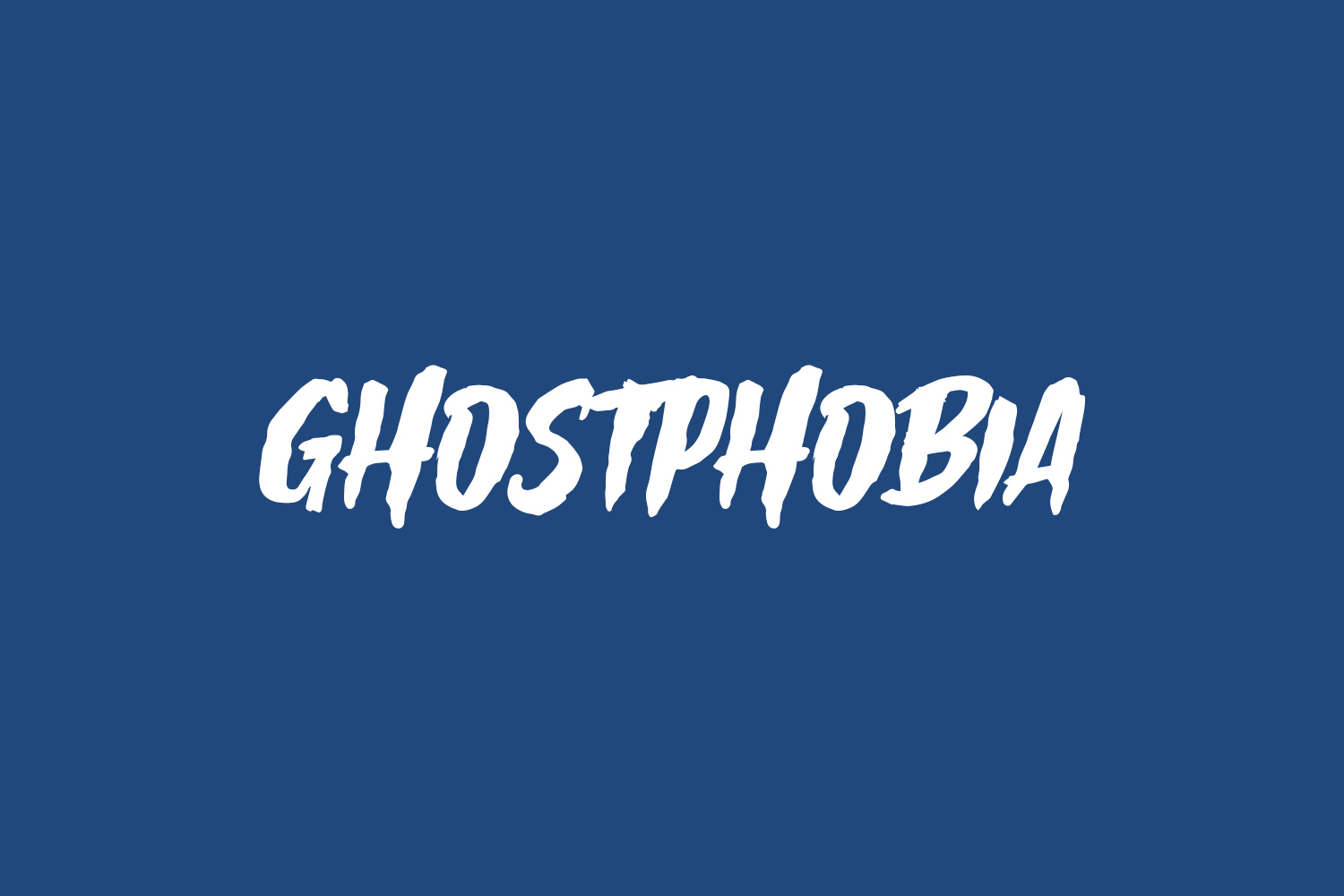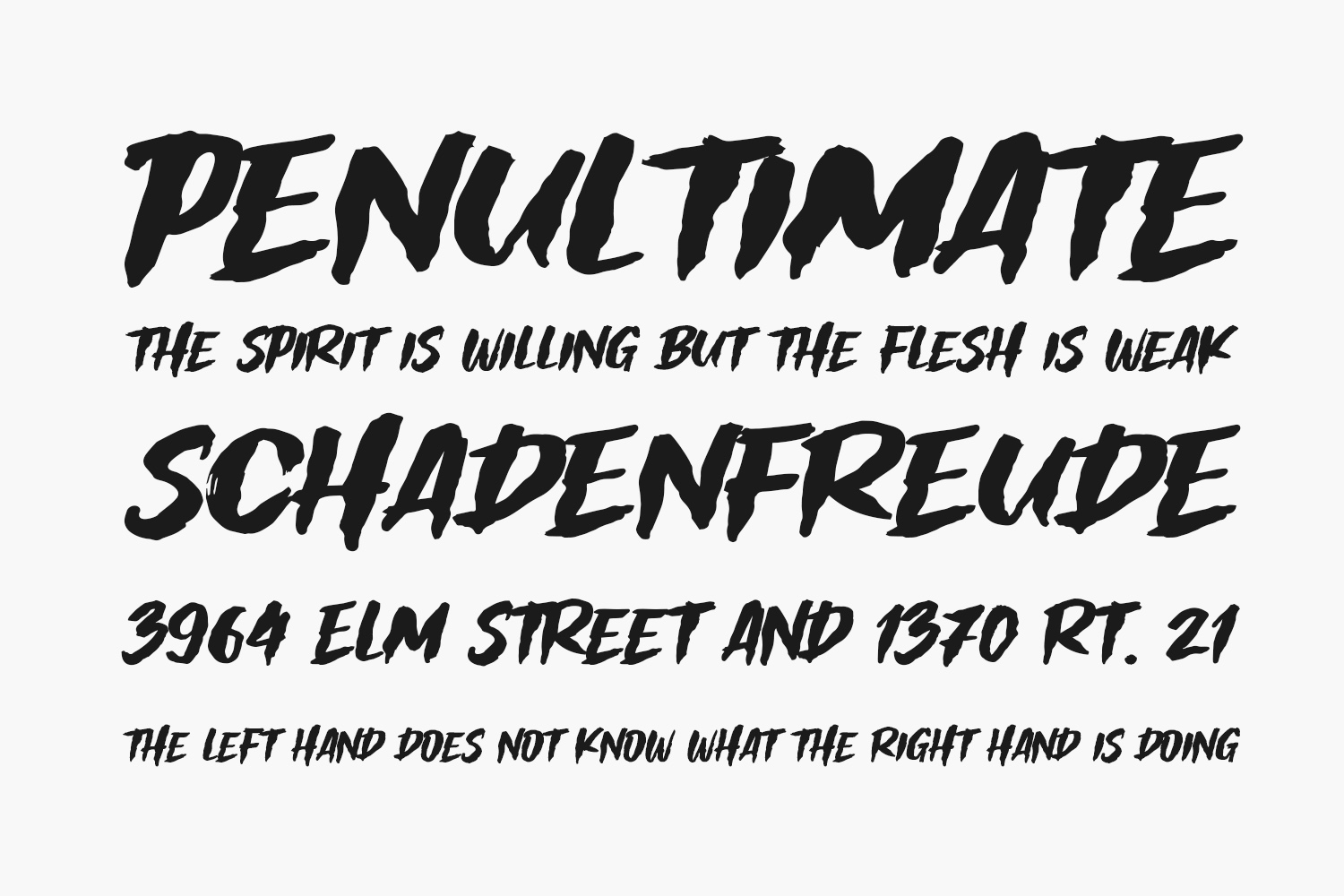
Ghostphobia Free Font is a unique and attractive display font. Oddly enough, this font looks really good in a variety of contexts! This font is suitable for designs with horror and Halloween concepts. Emphasize horror in your designs by using this font. Ghostphobia Free Font was designed by Khurasan and is free for personal use only. Please purchase the full version for commercial use.